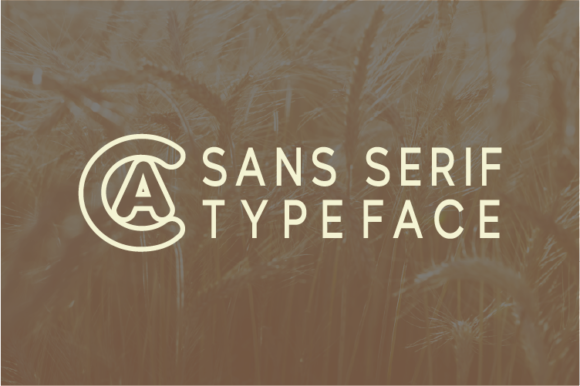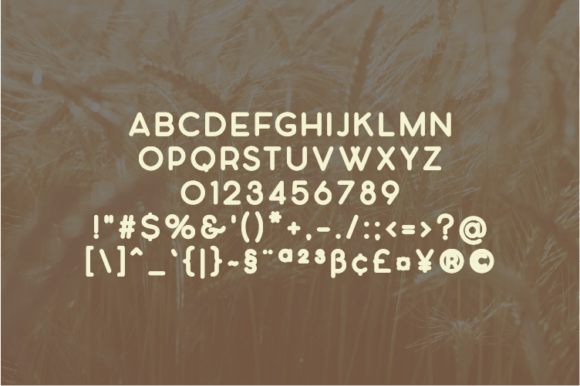
Introduction to Monart Font
Have you ever found yourself staring at a blank canvas, desperate for the perfect design element to bring your creative project to life? That’s exactly what happened to me when I stumbled upon the Monart Font – a game-changing, authentic, and bold sans serif font that revolutionized my design process.
As a designer, I can attest that having access to high-quality design resources is crucial to producing exceptional work. And that’s exactly what Monart Font offers – a free download that’s sure to elevate your designs to new heights. With its transparent background and sleek design, Monart Font is the perfect addition to any creative project, allowing designers to create stunning visuals with ease.
Key Features of Monart Font
- High-quality design resource suitable for creative projects, offering a unique and elegant touch.
- Monart Font features a transparent background, making it an ideal choice for designers who want to create visually appealing and layered designs.
- Designed with precision and attention to detail, Monart Font ensures a consistent and professional look across all creative projects.
- Monart Font is a versatile design resource, suitable for a wide range of creative projects, from branding and marketing materials to digital art and print media.
Honest Review: Monart Font
I recently had the chance to try out the Monart Font, and I must say it’s a fantastic addition to any designer’s toolkit. As a design resource, it’s perfect for creating a unique and eye-catching visual identity for your creative project.
What works well with Monart Font is its versatility. You can use it for a wide range of design applications, from headings to body text, and it looks great on a transparent background. The font is also available for free download, making it a great option for designers on a budget.
- ✨ Versatile font that can be used for various design applications
Overall, I’m impressed with Monart Font. While it may have some limitations, it’s a great design resource for designers looking to add some creativity to their projects. If you’re looking for a high-quality, free font that’s perfect for creative projects, Monart Font is definitely worth checking out.
Tips for Getting the Most Out of Monart Font
1. Experiment with different font sizes and styles to create a unique look.
2. Use the Monart Font with a transparent background to create a clean and modern design.
3. Combine the Monart Font with other design elements to create a visually appealing design.
The Monart Font is ideal for creative projects, including:
1. Graphic design and branding.
2. Digital marketing and social media.
3. Print design and publishing.
Is the Monart Font suitable for high-resolution printing?
Yes, the Monart Font is designed to be high-quality and suitable for high-resolution printing. The font’s crisp, clean lines and smooth curves ensure that it will look great in print, whether it’s for business cards, brochures, or other marketing materials.